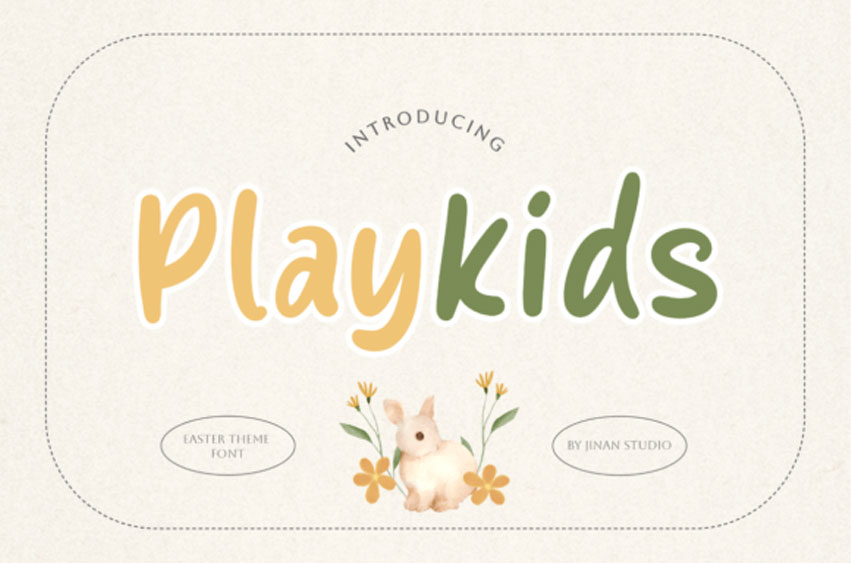
Playkids Font
Playkids Font is a vibrant and exuberant font designed to inject joy and dynamism into all your creative endeavors. Blending beautifully a combination of fluid script with rounded sans-serif characters, Playkids is the ideal font type for children-oriented designs, Easter-themed decorations, and any design needing a welcoming, convivial feel. Characterized by gentle arcs and a hand-sketched appearance, Playkids effortlessly encapsulates a spirit of youthful fun and innocence.
From invitations to greeting cards, brand development, or digital design pieces, Playkids is sure to lend a captivating and celebratory aura to all your masterpieces.